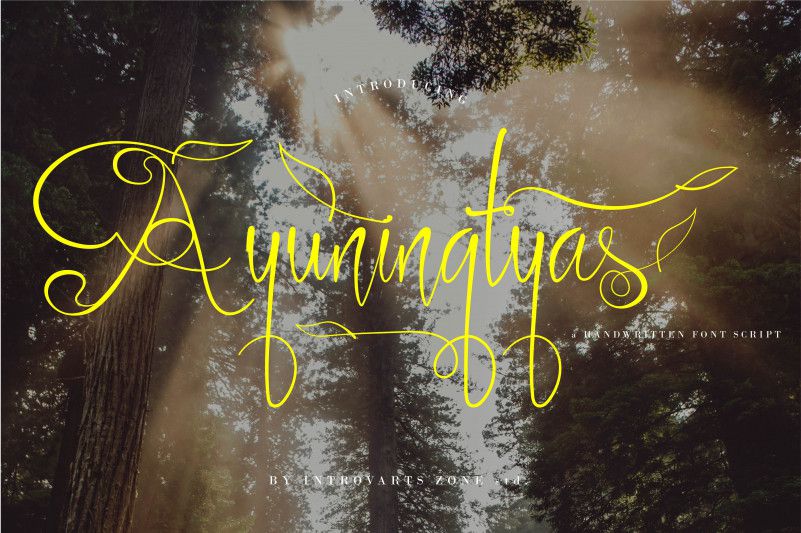
Ayuningtyas Font
Ayuningtyas Font is a hand drawn, elegant, modern calligraphic font perfect for wedding design projects, invitations, greeting cards, signatures, watermarks, logos, handwriting and more.
The font includes some foreign language glyphs so please do take a look at the other screenshots to see what’s included in this font and what you can do with it.